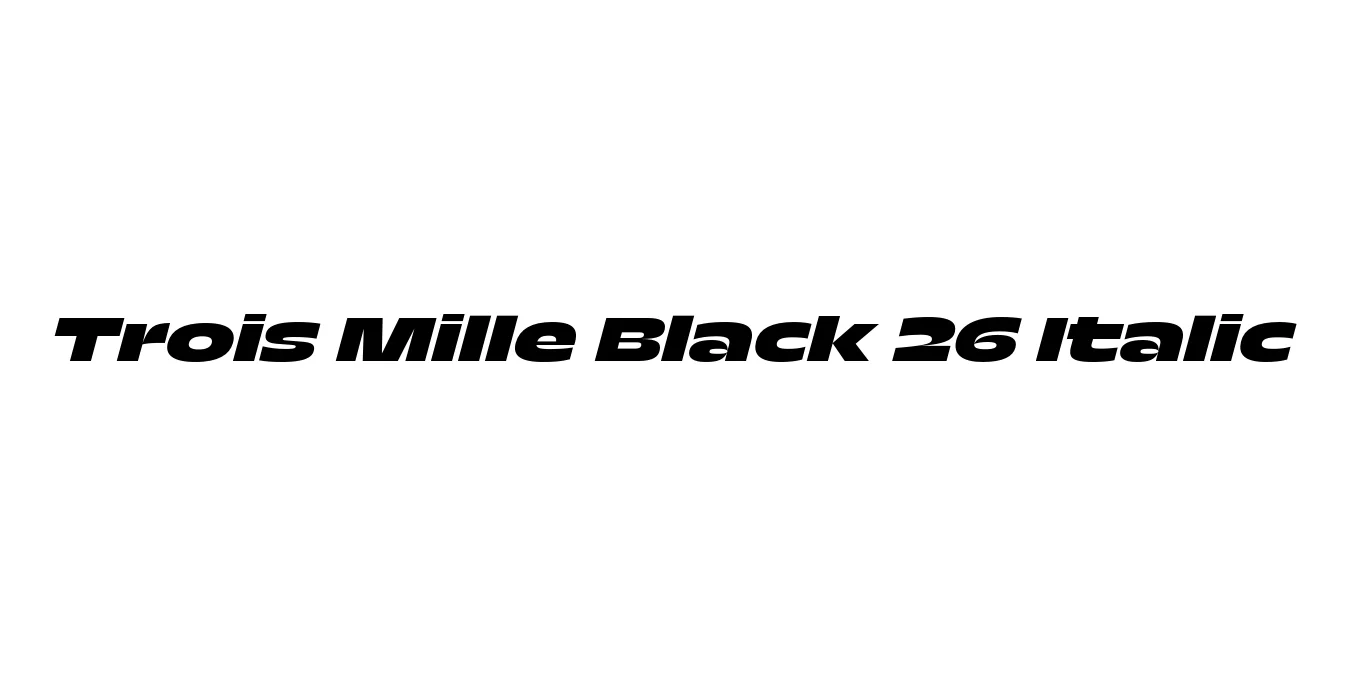
Trois Mille Black 26 Italic
Designed by Marc Rouault
Trois Mille, designed by Marc Rouault and released through Sharp Type, is a monumental typographic project that pays homage to the legacy of French display type, particularly the work of Roger Excoffon. The family is defined by its staggering variety of widths and weights, with the 'Black 26 Italic' representing one of the more extreme, wide, and impactful iterations. It captures a retro-futuristic aesthetic that balances 1970s sophistication with contemporary digital precision.
The 'Black 26 Italic' variant specifically utilizes a sharp, aggressive slant paired with a massive horizontal presence. Its construction draws inspiration from Antique Olive Nord, pushing those proportions even further to create a typeface that feels both architectural and aerodynamic. This font is engineered for high-impact branding, cinematic titles, and any environment where the typography needs to command absolute attention through its unique structural gravity.
Trois Mille Black 26 Italic Best Uses
Perfect for creating bold, unforgettable logos and modern identity systems.
Ideal for high-fashion magazine headlines and cinematic title layouts.
Excellent for hero sections that require a strong, wide typographic voice.
Great for large-scale outdoor media and impactful promotional posters.